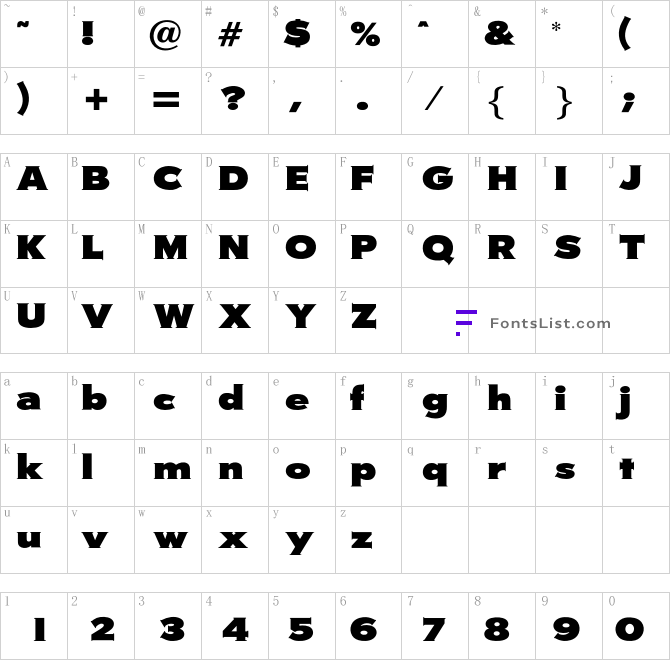
- Font Name:Arlington
Arlington.ttf is a very beautiful artistic font, Arlington.ttf is widely used in the design and printing of various books and pictures,Arlington.ttf has a strong visual impact,Arlington.ttf is a commonly used font in newspapers, magazines and books, and is used in posters, e-commerce Poster design, store design, logo design, font design and other fields.Arlington.